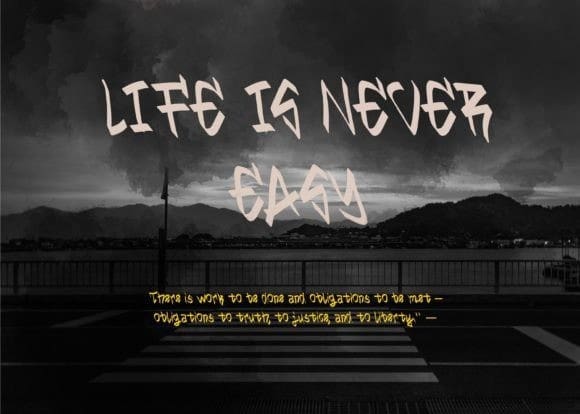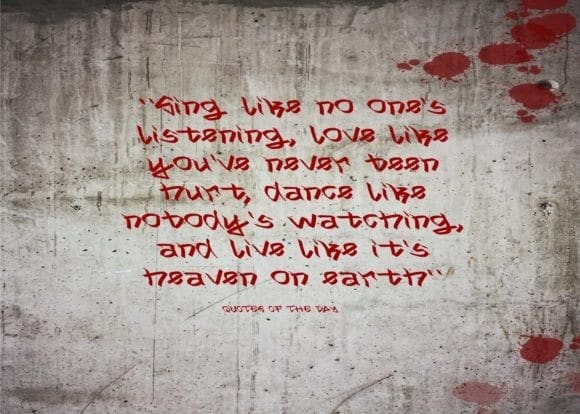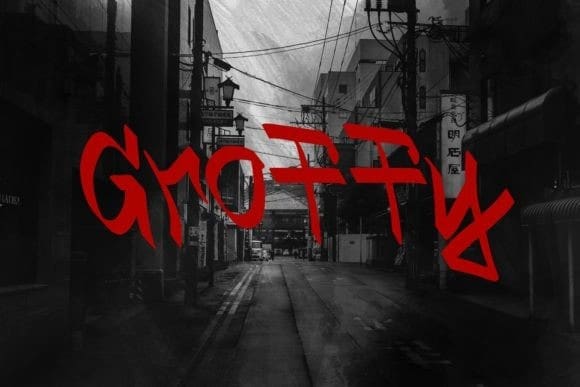
Groffy Graffiti Font
Groffy Graffiti Font is a modern and distinct display font. Urban and incredibly bold, this font will most certainly make your designs stand out.